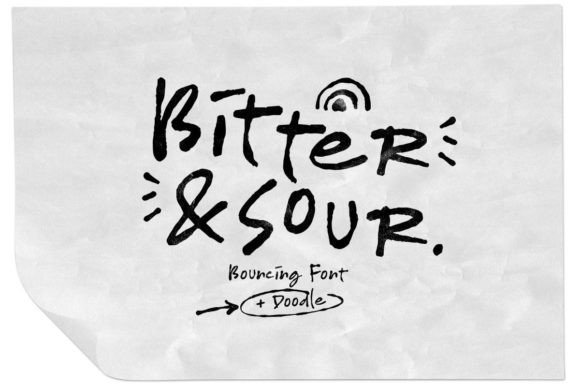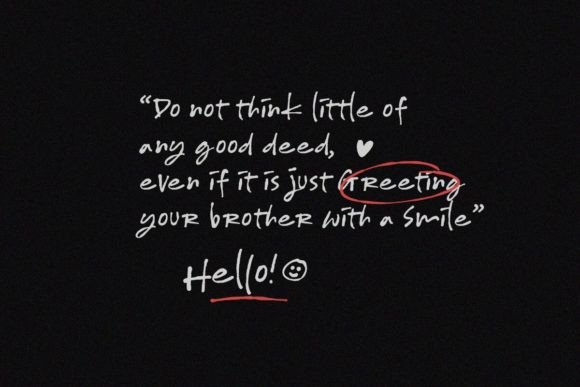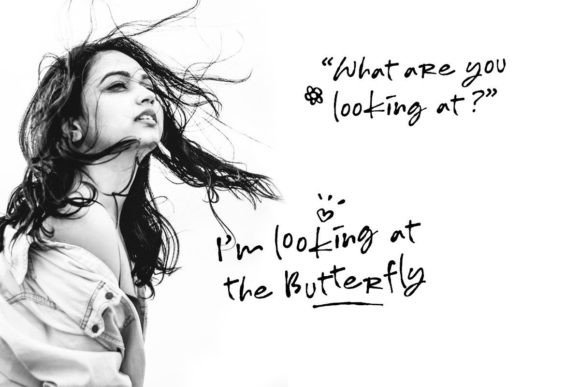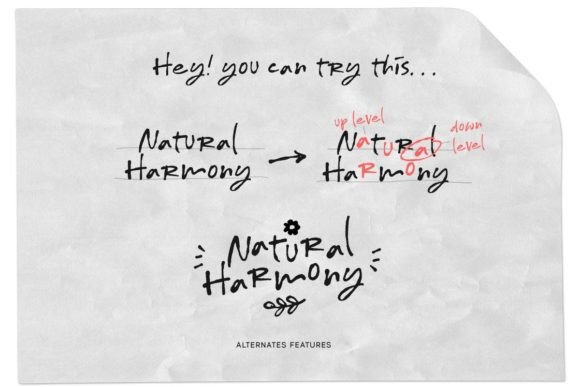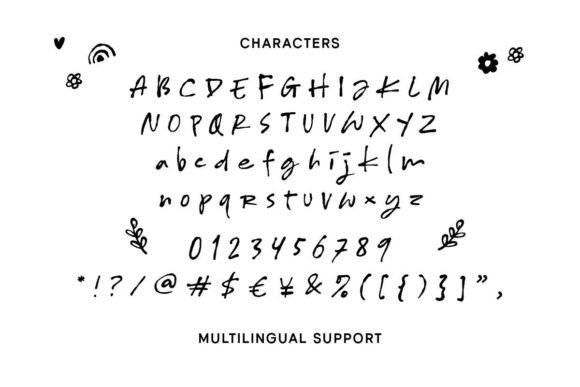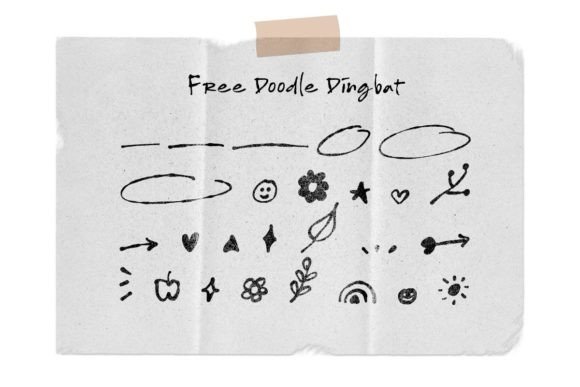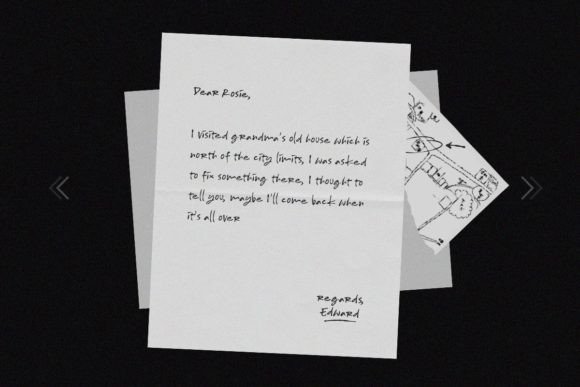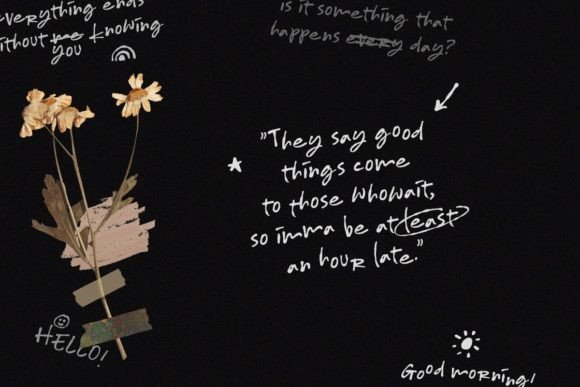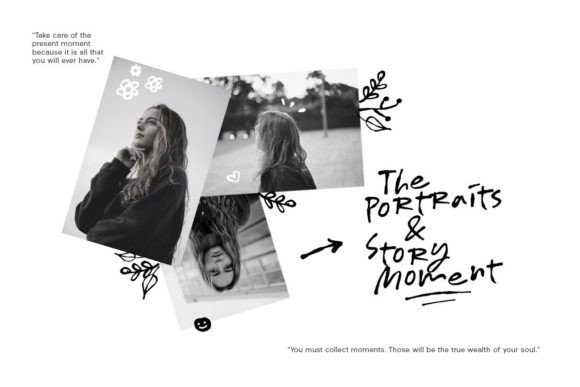
Bitter & Sour Font
“Bitter & Sour” is a lively and bouncy handwritten typeface paired with playful dingbats, creating a font with a fun and whimsical appearance. Ideal for themes related to fun, playfulness, children, or anything that requires a standout font, this typeface also proves to be versatile across various design applications. Whether used in invitations, labels, logos, magazines, books, greeting or wedding cards, packaging, fashion, makeup, stationery, novels, or any advertising project, “Bitter & Sour” brings a delightful and eye-catching charm to your designs.
The bouncy handwritten style of “Bitter & Sour” adds a dynamic and energetic touch to your projects. Each letter carries a playful vibe, making it well-suited for designs that aim to capture attention and create a lighthearted atmosphere. The inclusion of dingbats further enhances the font’s versatility, providing additional playful elements to complement your creative vision.
The fact that “Bitter & Sour” is PUA encoded ensures easy access to a plethora of glyphs and swashes. This feature empowers you to customize and personalize your designs effortlessly, allowing for a high degree of creative freedom. The font becomes a user-friendly tool that invites exploration and experimentation.
Imagine the impact of “Bitter & Sour” on your magazine layout—it transforms the pages into a vibrant and engaging experience. In invitations or greeting cards, it adds a touch of playfulness that resonates with recipients. Whether used in packaging design or fashion-related projects, this font duo becomes a key element that amplifies the visual appeal with its lively and fun-loving character.
Incorporate “Bitter & Sour” into your design toolkit and witness how it breathes life into your projects. Let its bouncy handwritten style and playful dingbats be the elements that elevate your designs, making them stand out with a delightful and whimsical charm.